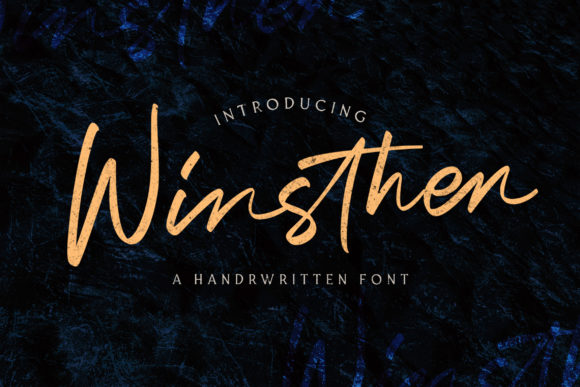
Adorn your designs with Winsthen, a captivating script font that exudes a charming handwritten essence. This enchanting creation by StringLabs is a masterpiece that will transform your creative visions into exquisite works of art. Winsthen's playful and casual style is perfect for adding a touch of warmth and personality to your projects.
Unleash your creativity with Winsthen, the font that knows no bounds. Whether you're crafting heartfelt Instagram posts, designing eye-catching logos, or embarking on DIY projects, Winsthen will elevate your ideas to new heights. Its friendly and approachable nature makes it the perfect choice for adding a personal touch to any project.
With Winsthen, your words will dance across the page, captivating your audience with its effortless charm. Its beautiful curves and whimsical strokes create a visual symphony that will leave a lasting impression. Experience the joy of creating designs that resonate with your audience, designs that speak to their hearts and capture their imaginations.
Step into a world where creativity flourishes, where your ideas come to life with vibrancy and authenticity. Winsthen is the key to unlocking this world, a world where your designs shine with individuality and flair. Embrace the magic of this extraordinary font and embark on a creative journey that will leave you breathless.